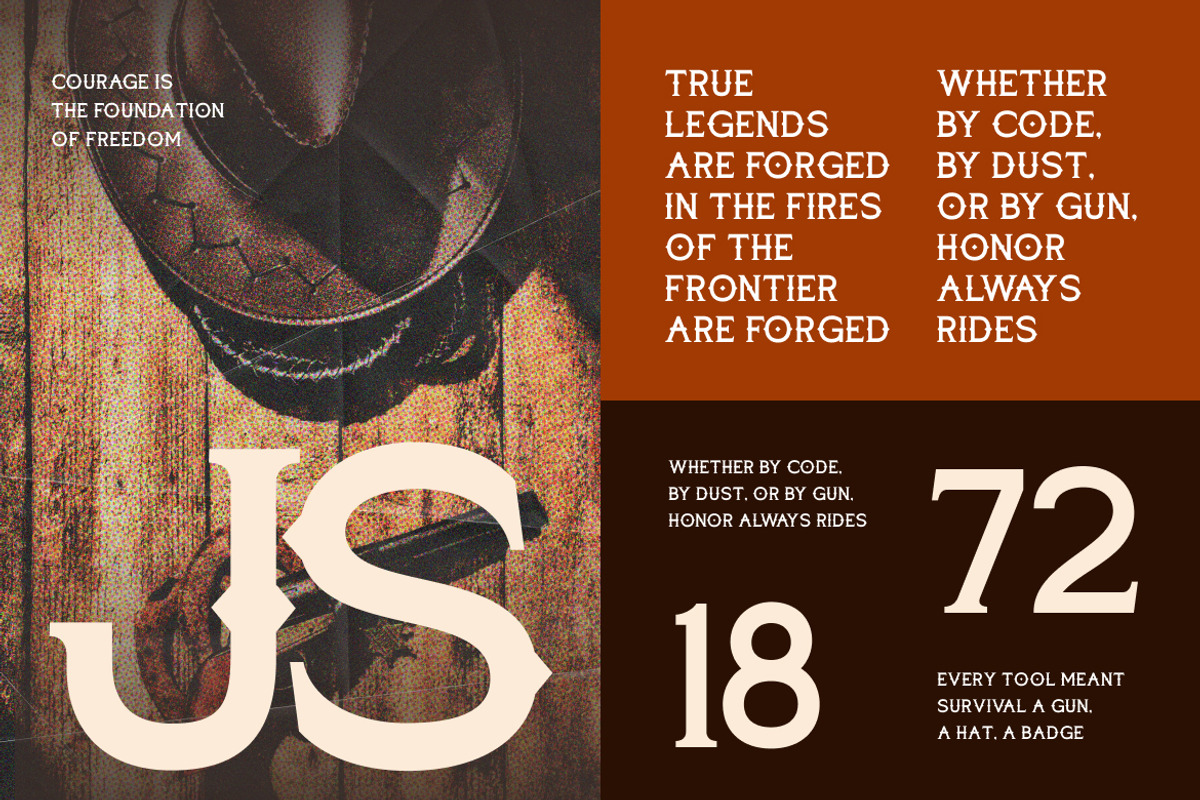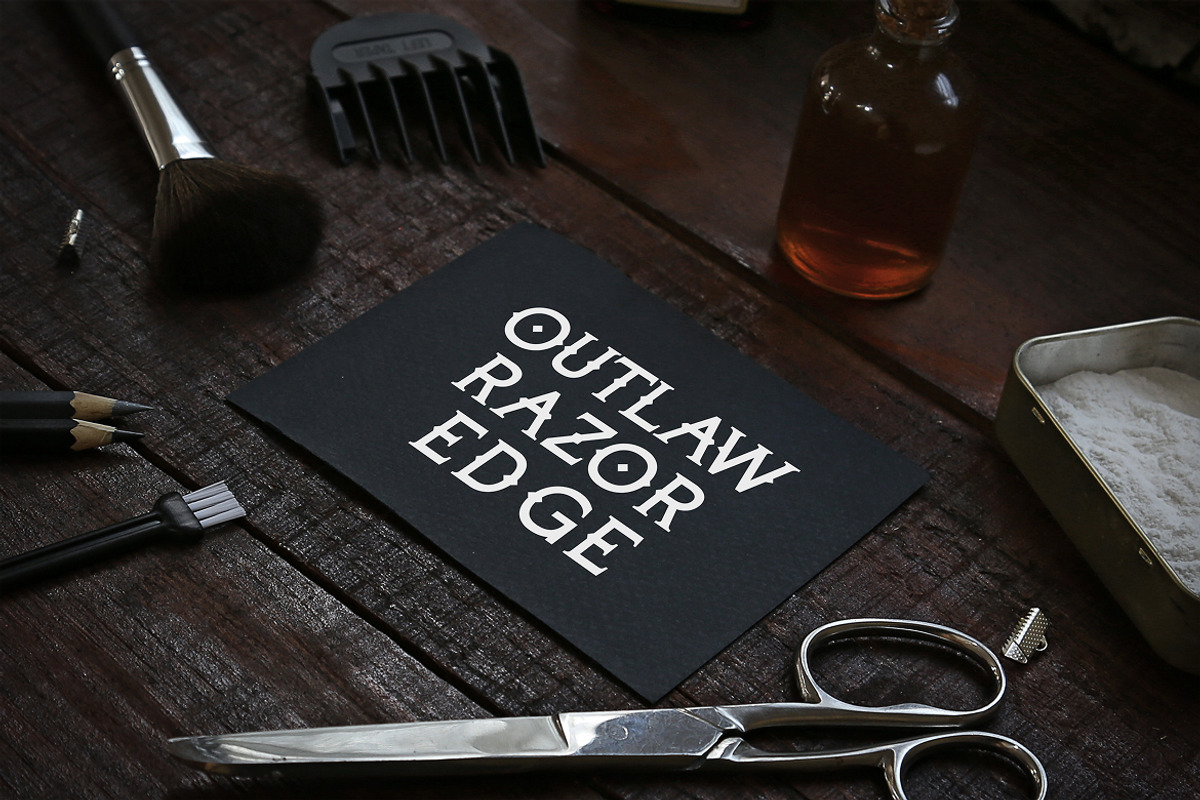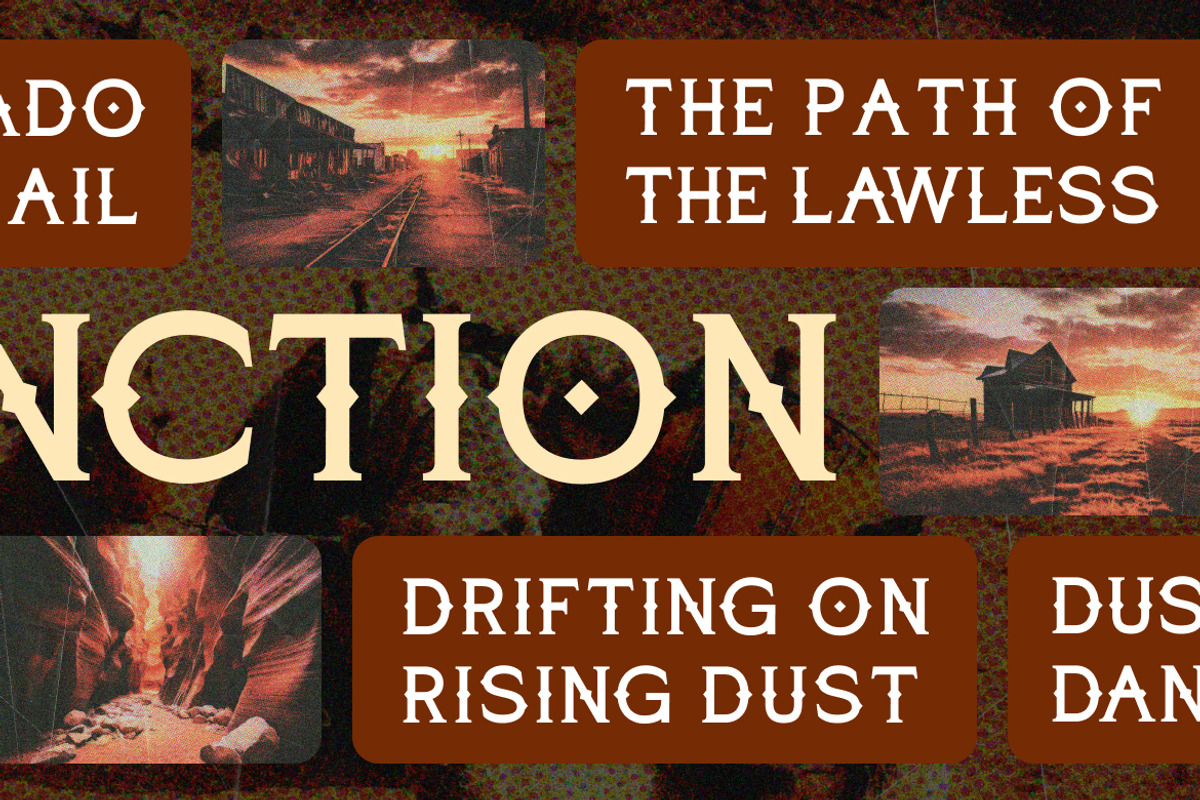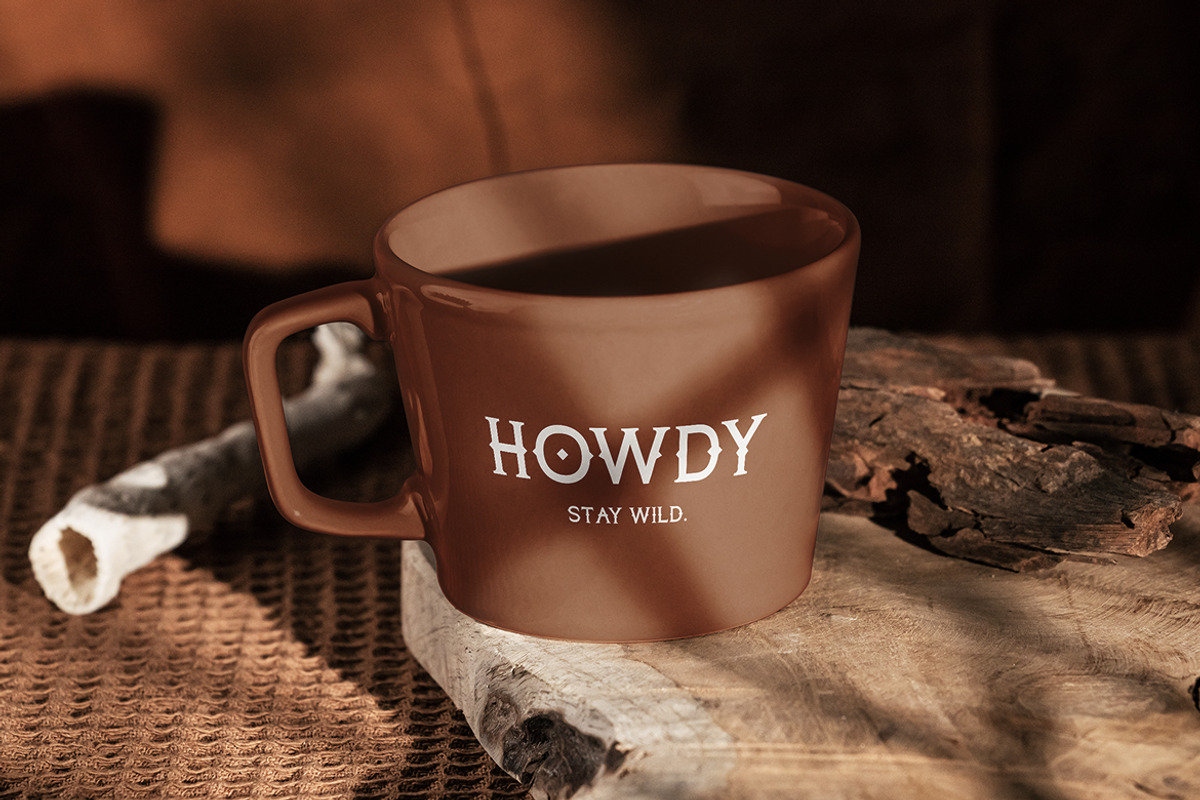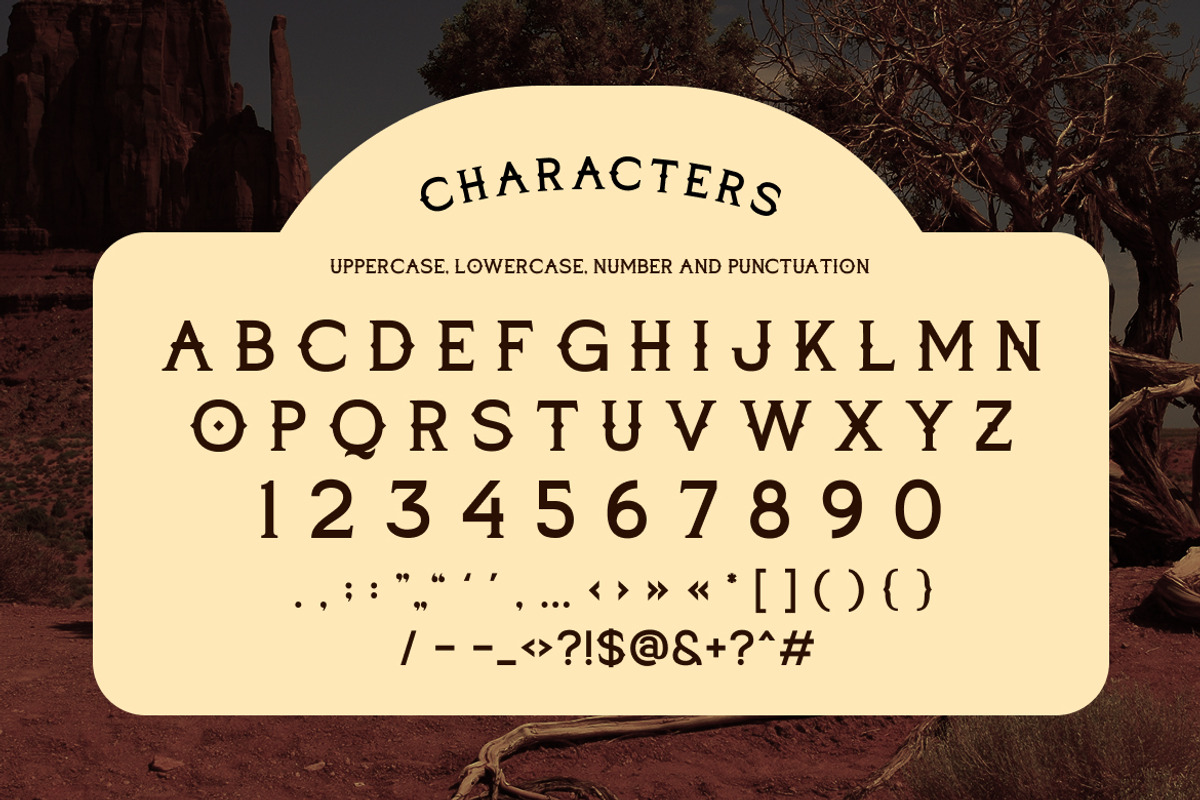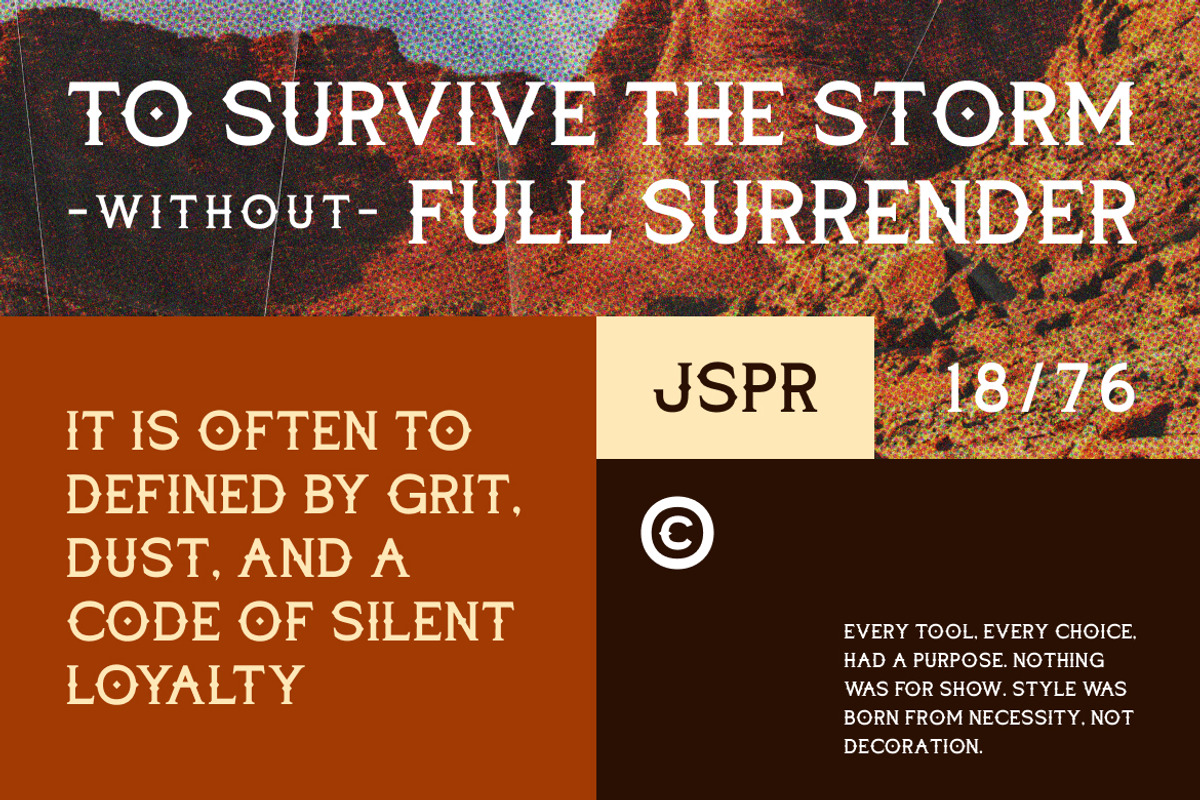
Jagged Spur – Western Typeface
Jagged Spur is a creative serif typeface that blends rugged western aesthetics with bold, modern design. Featuring sharp cuts, angular details, and striking character shapes, this font evokes the spirit of vintage Americana while bringing a contemporary edge. Its unique style makes it perfect for impactful branding, adventurous poster designs, and expressive typography projects.
With its commanding presence and creative flair, Jagged Spur ensures that any design stands out with personality and strength.
Why Designers Love It:
Western Charm: Inspired by cowboy-era typography with a modern reinterpretation.
Creative Cuts: Unique jagged edges add boldness and flair to your designs.
High Impact: Works best in large display uses where it can command attention.
Versatile Design: Perfect for logos, posters, apparel, and themed graphics.
Bold serif style with creative western-inspired design
Best Use Cases:
Western and vintage branding
Posters and promotional designs
Apparel and merchandise graphics
Event flyers and themed campaigns
Product packaging and labels
Editorial and creative layouts
Jagged Spur is the perfect serif display font for designers looking to combine rugged western style with a bold and modern look. Its sharp details and strong personality make it a standout choice for adventurous and expressive projects.